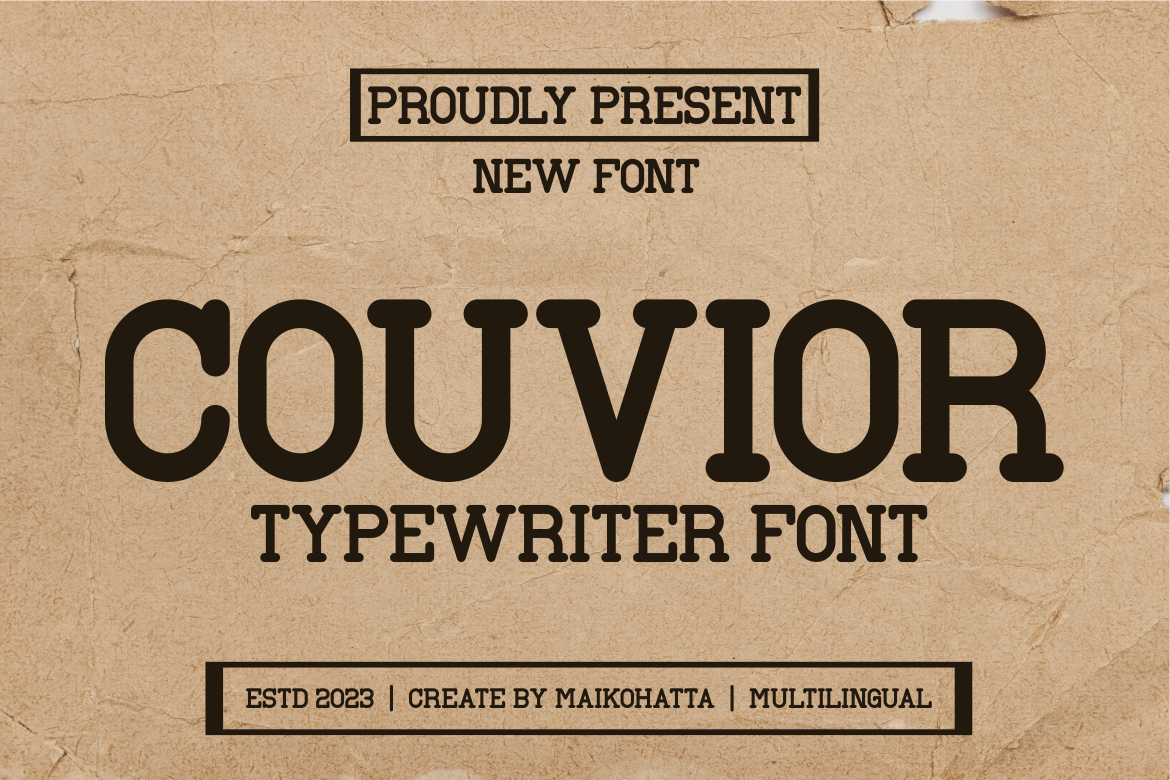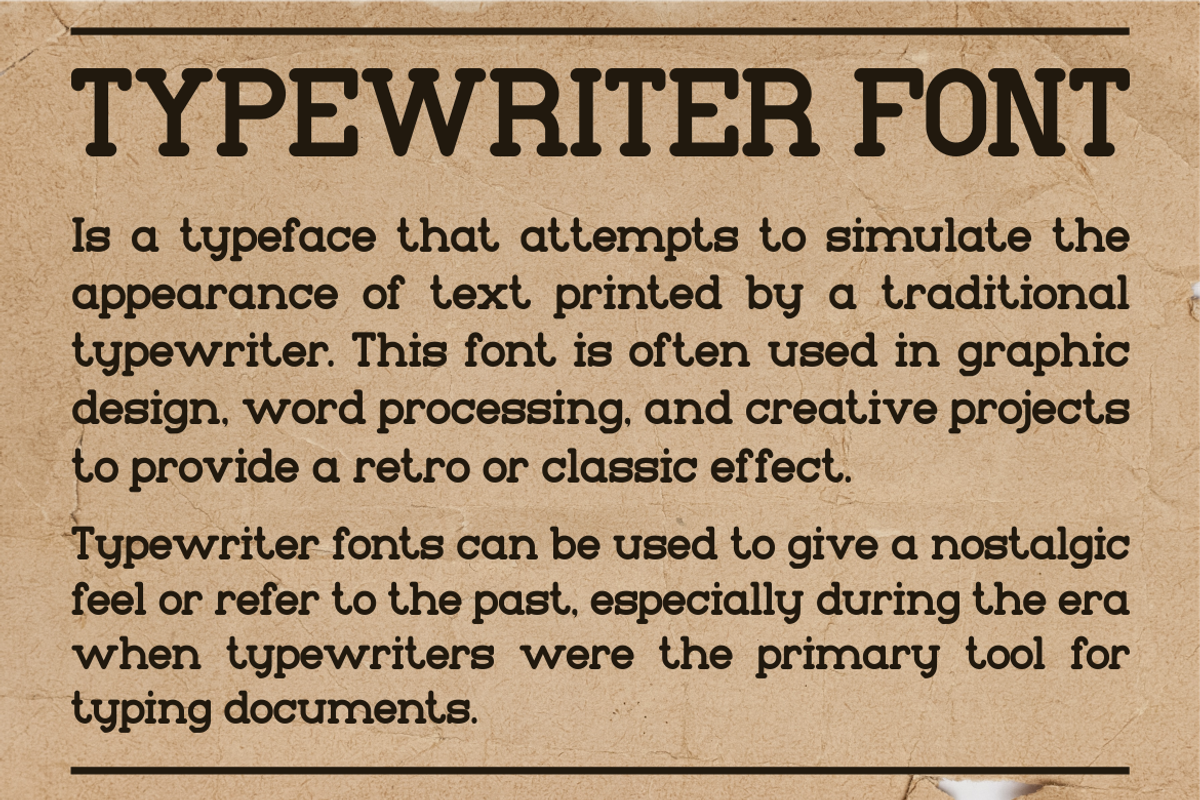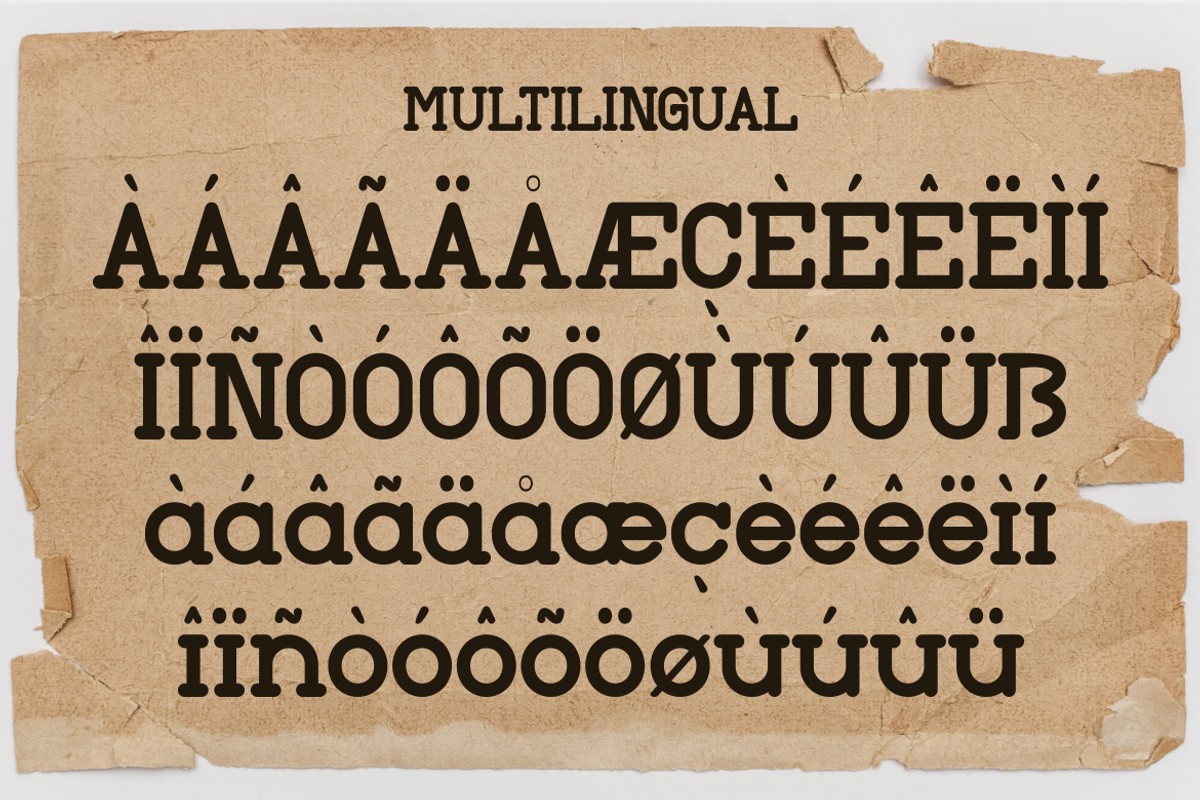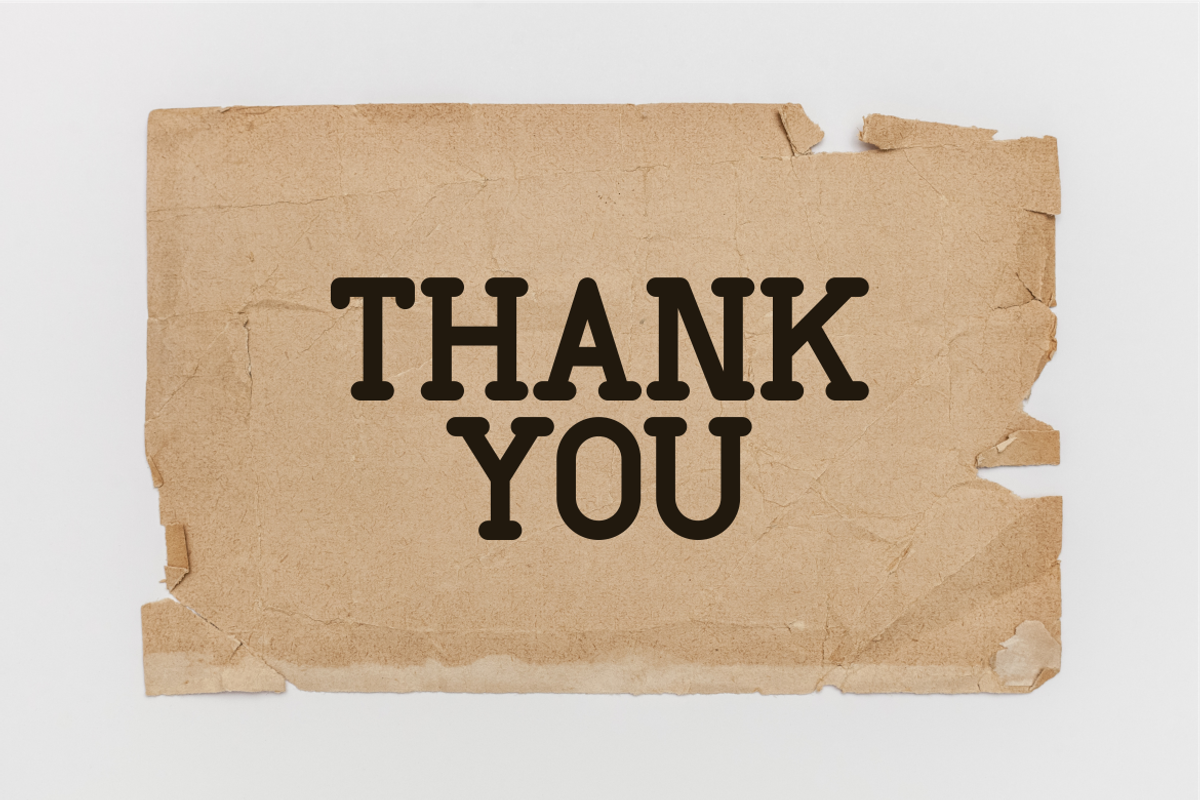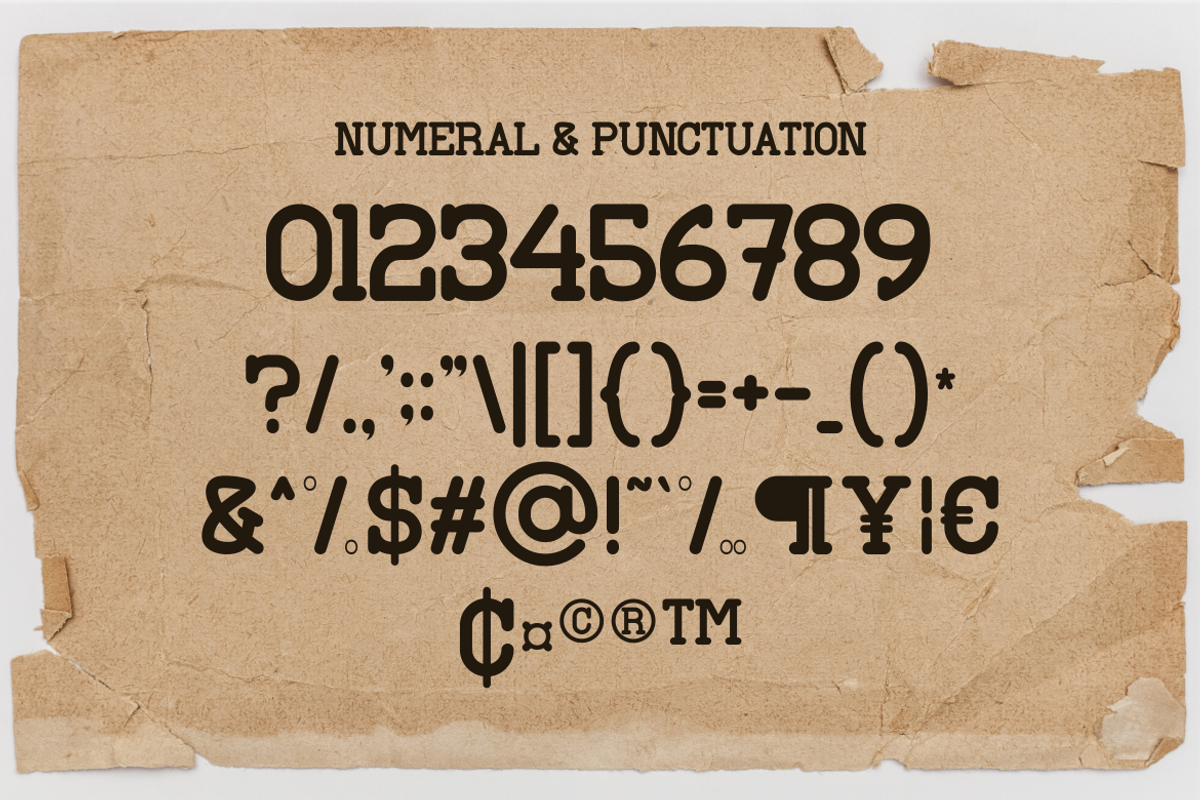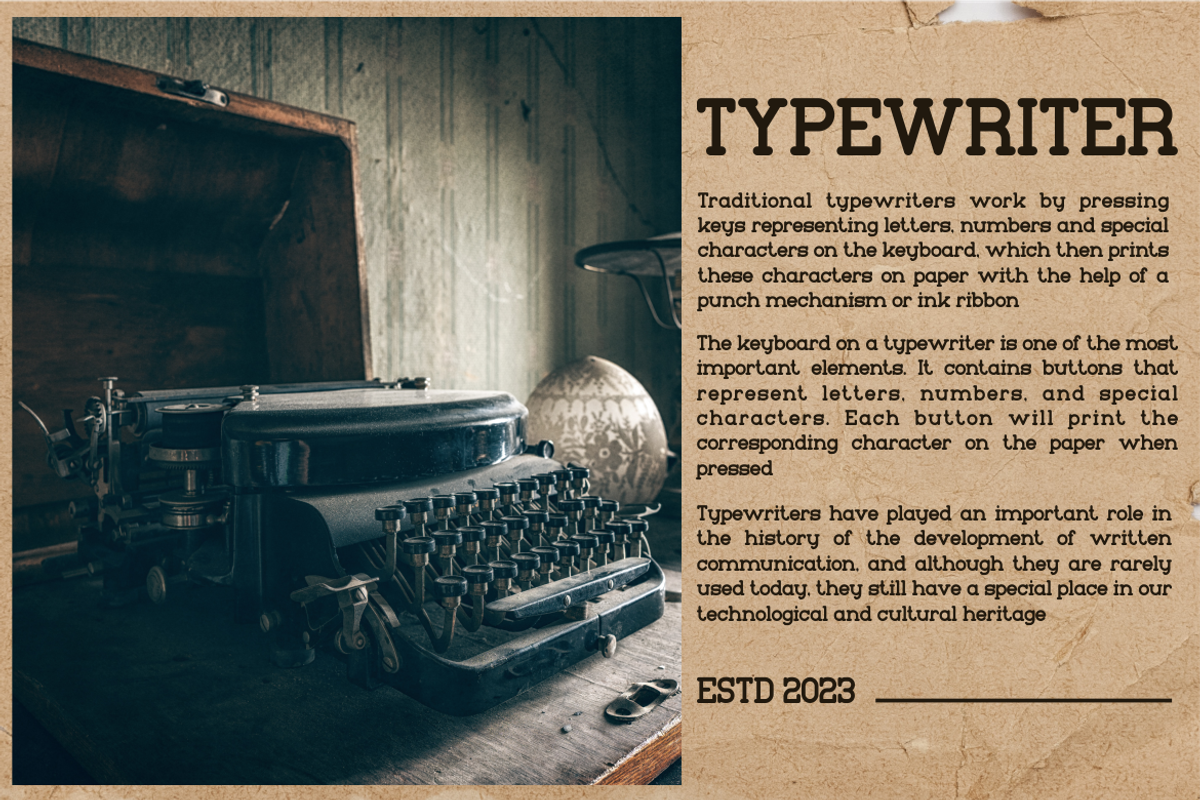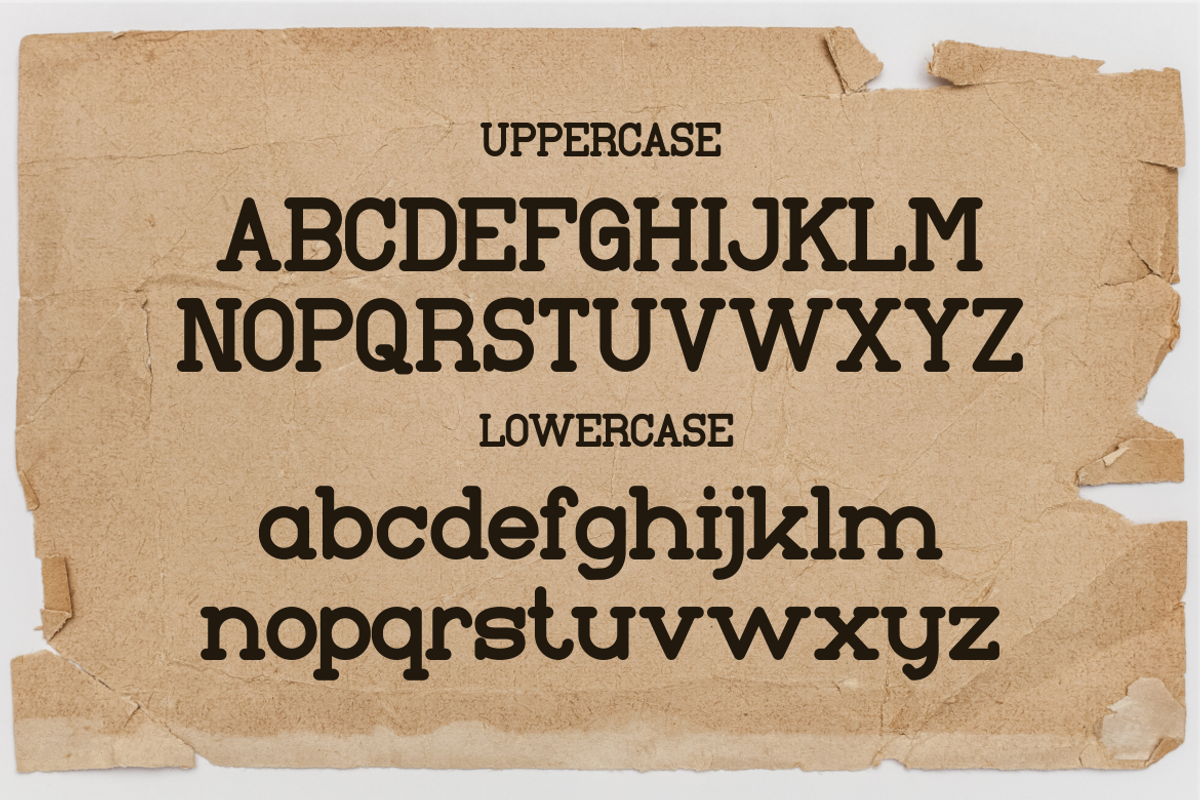
Couvior - Typewriter Font
Couvior is a bold and authentic typewriter-inspired font that captures the raw, mechanical charm of classic typing machines. With its strong letterforms, rounded edges, and monospaced feel, this font blends vintage aesthetics with modern versatility.
Perfect for retro posters, editorial layouts, book covers, branding, and stationery, Couvior brings a timeless typewriter vibe to your creative projects. Its clear readability and distinctive style also make it a great choice for quotes, labels, packaging, and digital designs that need a nostalgic yet professional touch.
Bring history to your typography with Couvior – a font that combines retro warmth with bold character.